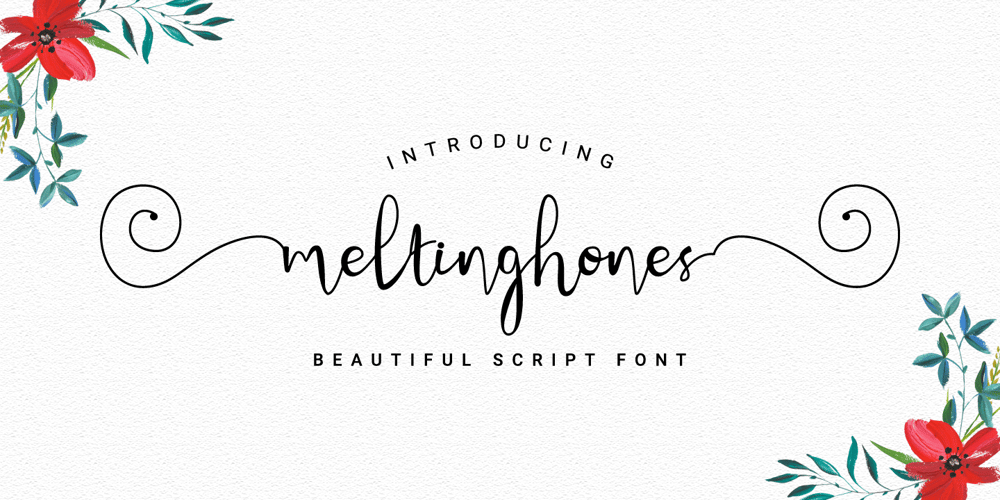
Meltinghones Font Family was designed by Prio Nurokhim Aji and published by Prioritype. Meltinghones contains 1 styles and family package options. An elegant and beautiful looking font that is perfect for your project and supports multilingualism. Can be applied to various kinds of print and digital media such as boutiques and salons, women’s jewelry, wedding invitations, business cards, photographer watermarks, clothing, creative posts and more. For reference, see preview.Features:-Uppercase-Lowercase-Numeral-Punctuation-Ligature-Multilingual